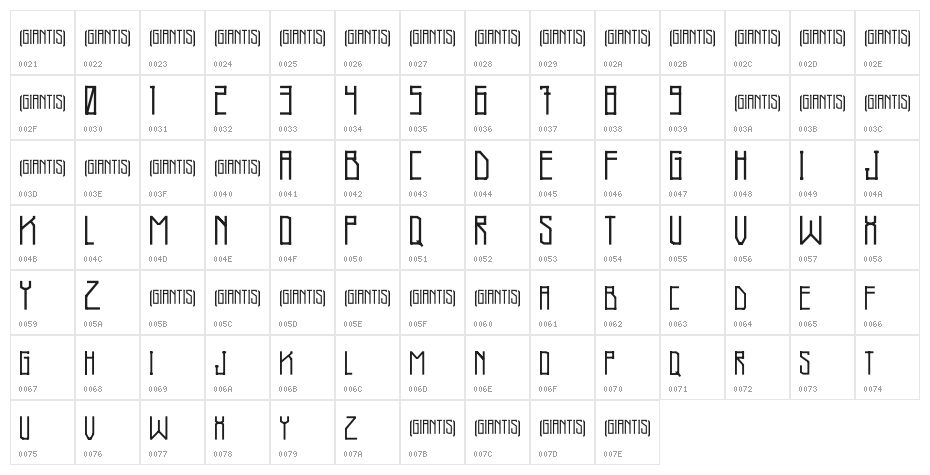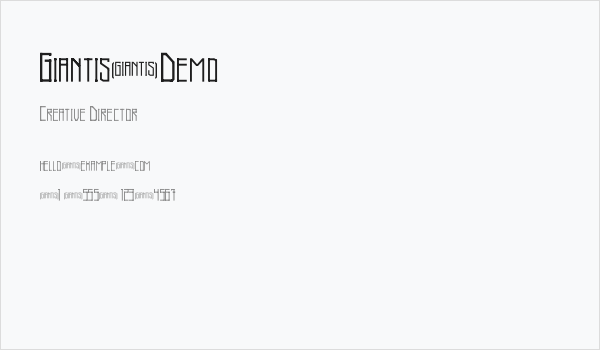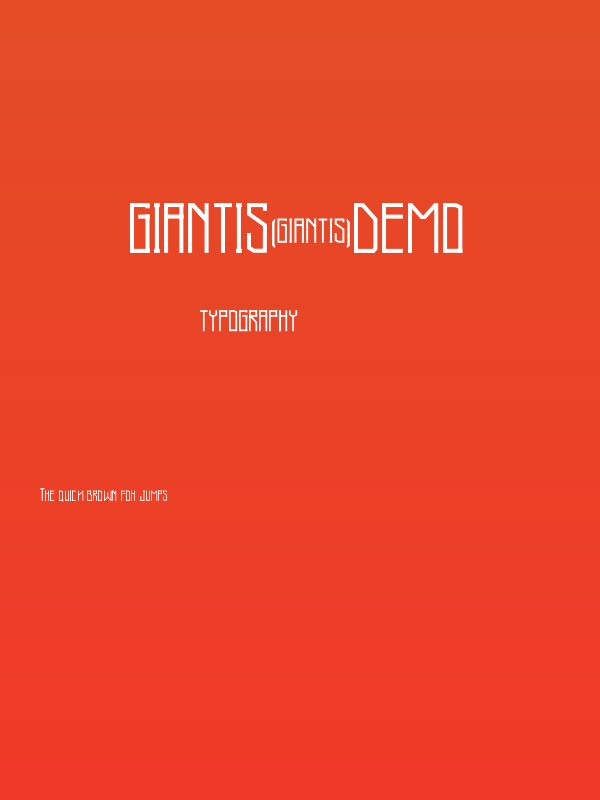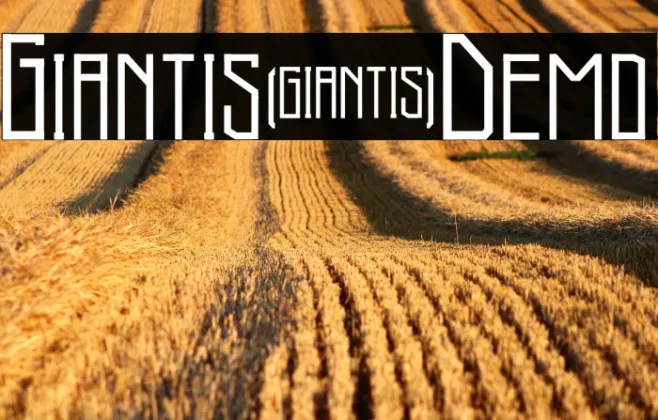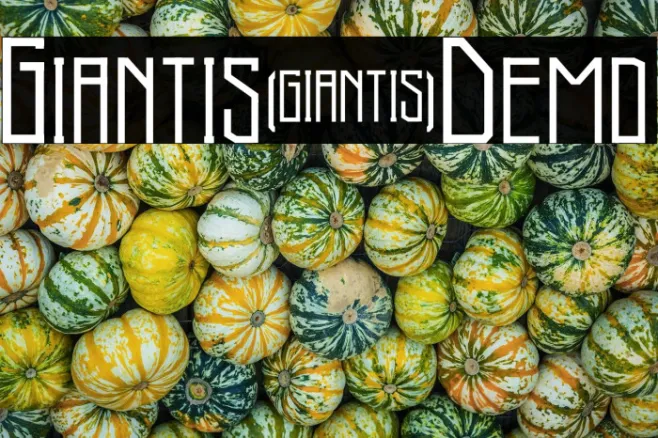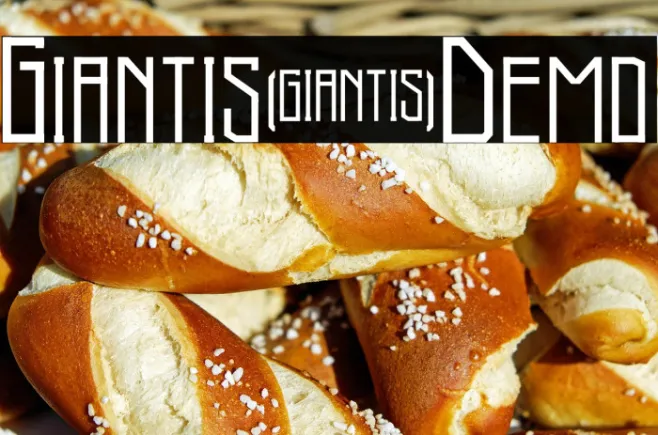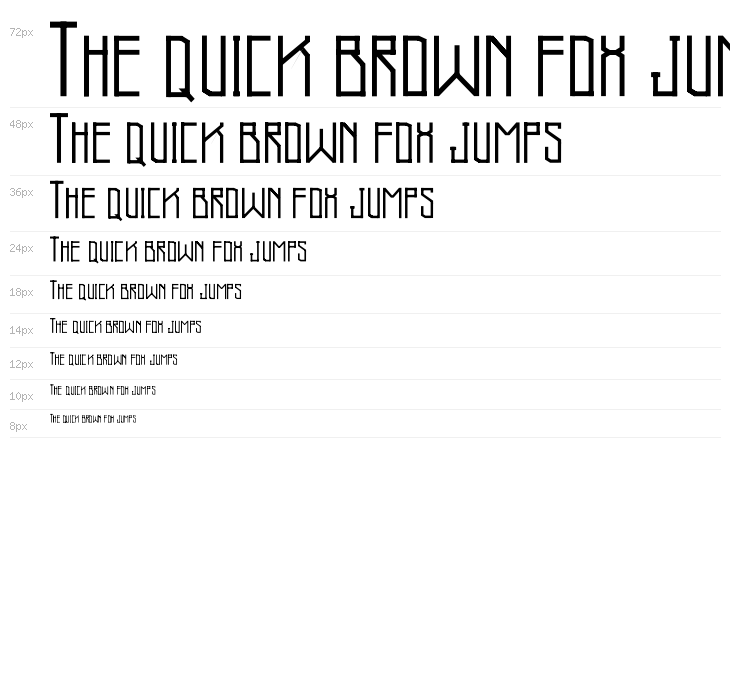
Giantis-Demo Font
Giantis-Demo Description
This font features a geometric and angular design, characterized by its tall, narrow letterforms and sharp edges. The uppercase letters exhibit a consistent height and width, creating a uniform appearance. The numerals are similarly styled, maintaining the angular theme. The overall design is modern and minimalistic, with a focus on clean lines and simplicity. The font's unique structure makes it stand out, offering a futuristic and tech-inspired aesthetic. It is well-suited for projects that require a bold and distinctive look, such as branding, posters, and digital interfaces.
| Proposed Projects | Ideal for branding, posters, digital interfaces, and projects requiring a bold, futuristic look. |